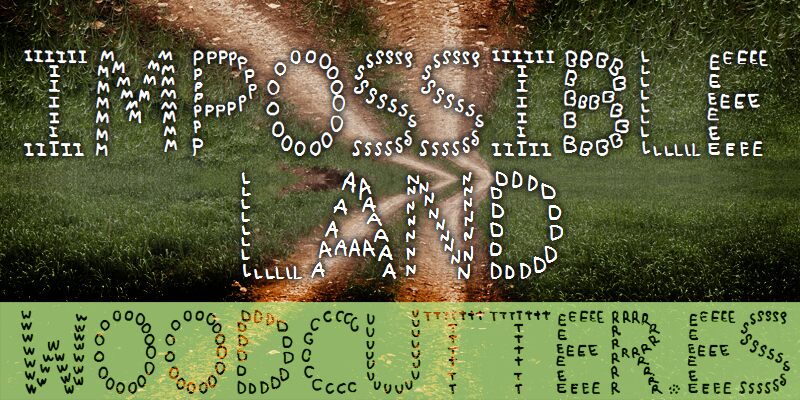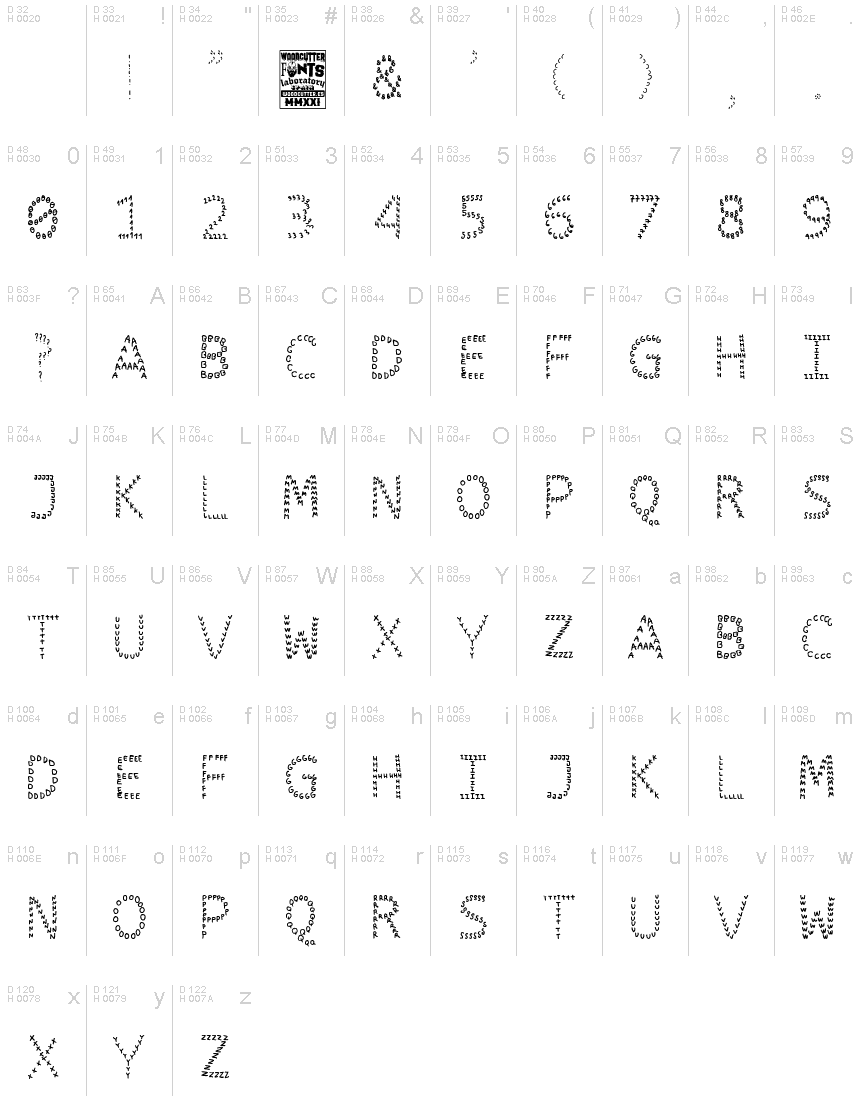
Impossible Land
Impossible Land, crafted by the talented Woodcutter, is a mesmerizing display font that will transport your projects to another dimension. With its decorative style and semi-light weight, this font adds an otherworldly touch to any design.
Perfect for fantasy book covers, magical party invitations, or ethereal posters - let your imagination run wild. Its delicate strokes and intricate details will captivate viewers, making it a standout choice for branding unique products or creating eye-catching social media graphics.